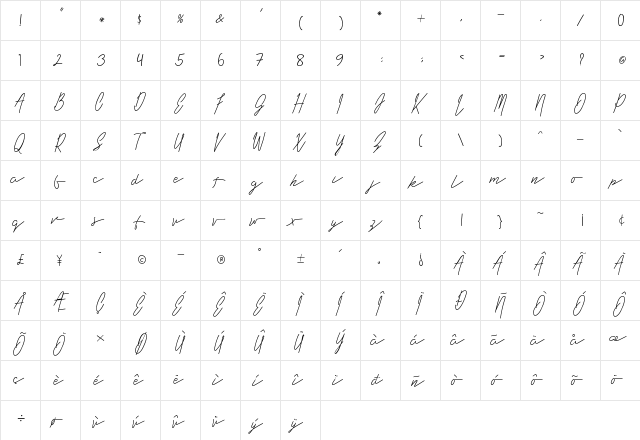
Long Liner Regular
| Foundry | Mario Studio |
| Designer | Mario Studio |
Design Context for Long Liner Typeface
Long Liner is a composed and adaptable typeface that performs quietly and consistently across a wide range of design contexts.